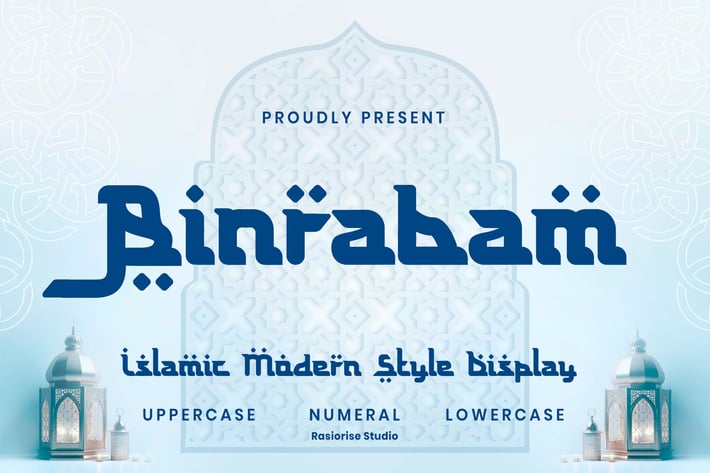
Arabic Font - Binrabam
Presenting Binrabam Arabic Font by Rasiorise Studio
The font Binrabam is now available for people searching for a Arabic font. Arabic modern font styles served as inspiration for this font design. Some elements, such as the regular character types, and alternate uppercase character were combined to give the typeface a modern and arabic appearance.
1. Uppercase and Lowercase
2. Numeral, Punctuation & Symbols
3. Multilingual Support
5. Regular Character Font
6. Alternate Character
7. Ligature Character